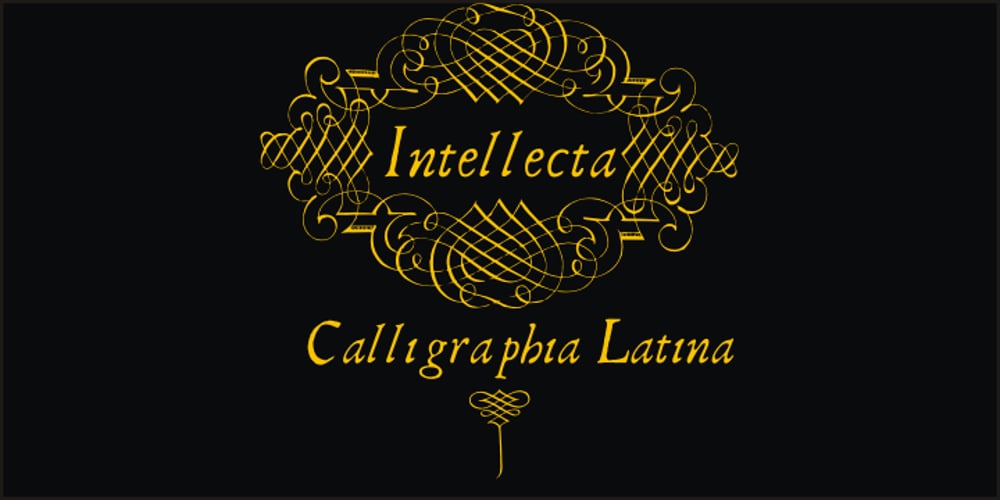
CalligraphiaLatina
CalligraphiaLatina font
CalligraphiaLatina Font Family was designed by Paulo W and published by Intellecta Design. CalligraphiaLatina contains 1 styles and family package options. One of the most successful new ornament fonts is CalligraphiaLatina. It is part of a trend that’s been quite popular lately: messed-up calligraphy. You can dirty up (or “deconstruct”) gracious classic-looking curves in many ways: using a variety of software filters; by superimposition; or even by hand. Brazilian designer Paulo W has his own method, possibly involving a scanner and some auto-tracing. The result works well when you want that worn-down grungy look, combining CalligraphiaLatina ornaments with the equally wobbly Liam. Source : Rising Stars February 2008.